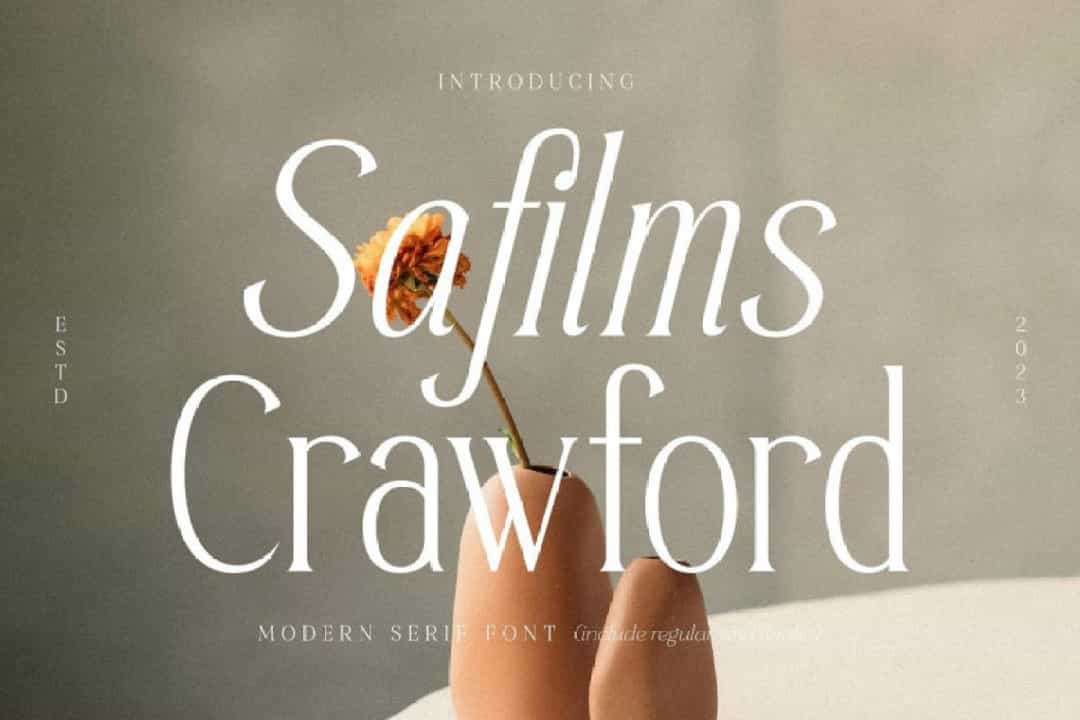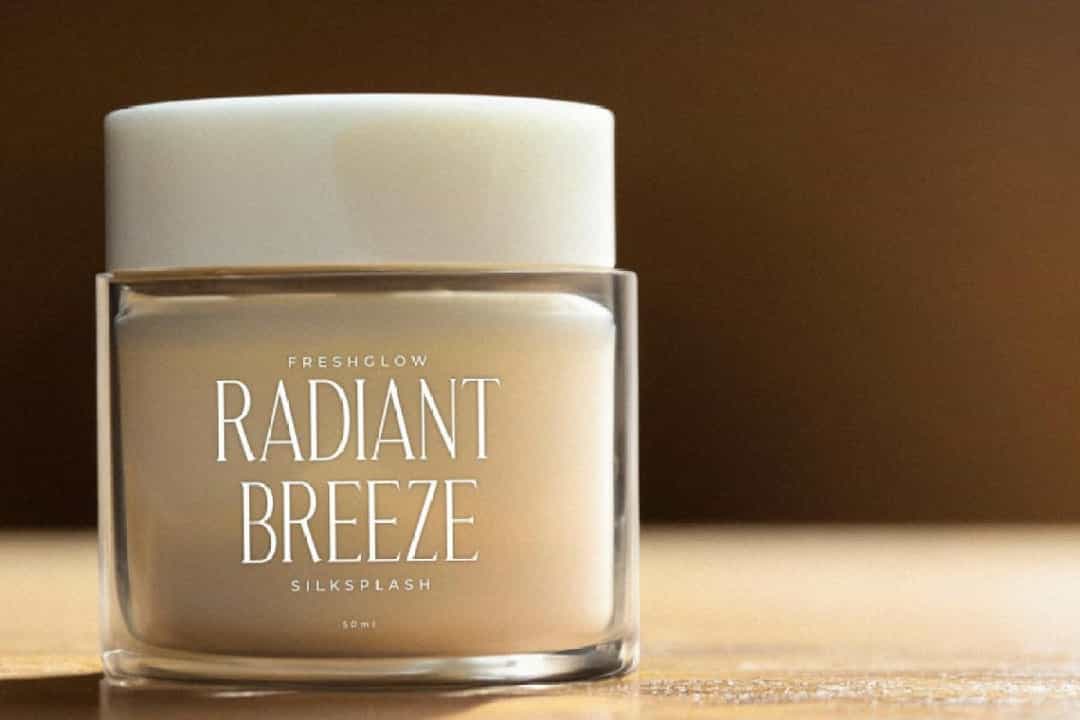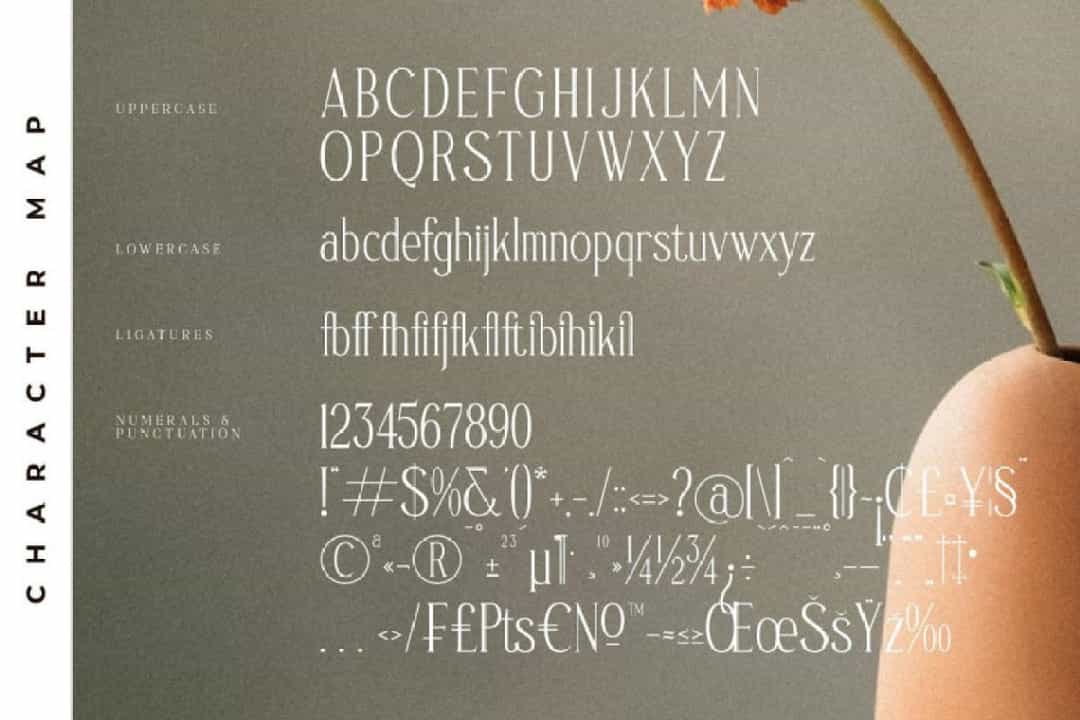
Safilms Crawford is an elegant yet contemporary serif typeface, featuring its own distinct style and contemporary look. Perfect for use in sophisticated logo designs, movie or book title designs, fashion brand clothing lines, magazines letters and quotes among many other projects, it makes an excellent addition to any creative workspace.